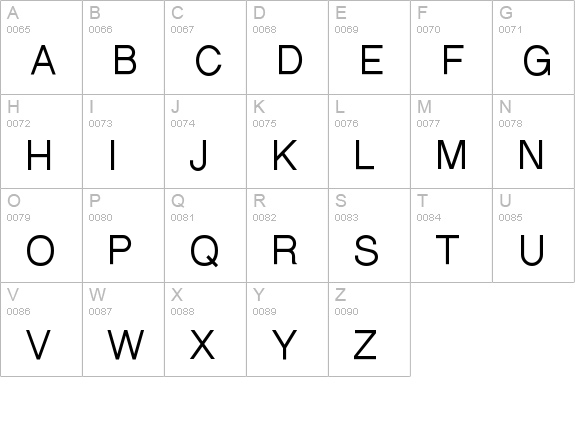
Halotique Tryout Font Details
Introducing Halotique Tryout, a captivating and versatile font that effortlessly combines modern elegance with a touch of retro charm. This font is a true testament to the harmonious fusion of contemporary design and classic aesthetics. With its distinctive letterforms and graceful curves, Halotique Tryout exudes a sense of sophistication and refinement that is sure to captivate any viewer. Featuring a wide range of weights and styles, Halotique Tryout offers endless possibilities for creative expression. Whether you are designing a logo, creating eye-catching headlines, or crafting stunning invitations, this font will elevate your projects to new heights. Its clean and legible character set ensures readability across various mediums, making it perfect for both print and digital applications. But what sets Halotique Tryout apart is not just its exceptional design, but also the fact that it is freely available to download at FontsMarket.com. This means that you can access and use this remarkable font without any cost or restrictions, allowing you to unleash your creativity without limitations. So why wait? Discover the beauty and versatility of Halotique Tryout today, and let your designs shine with its timeless allure. Download this font for free at FontsMarket.com and embark on a design journey that is limited only by your imagination.